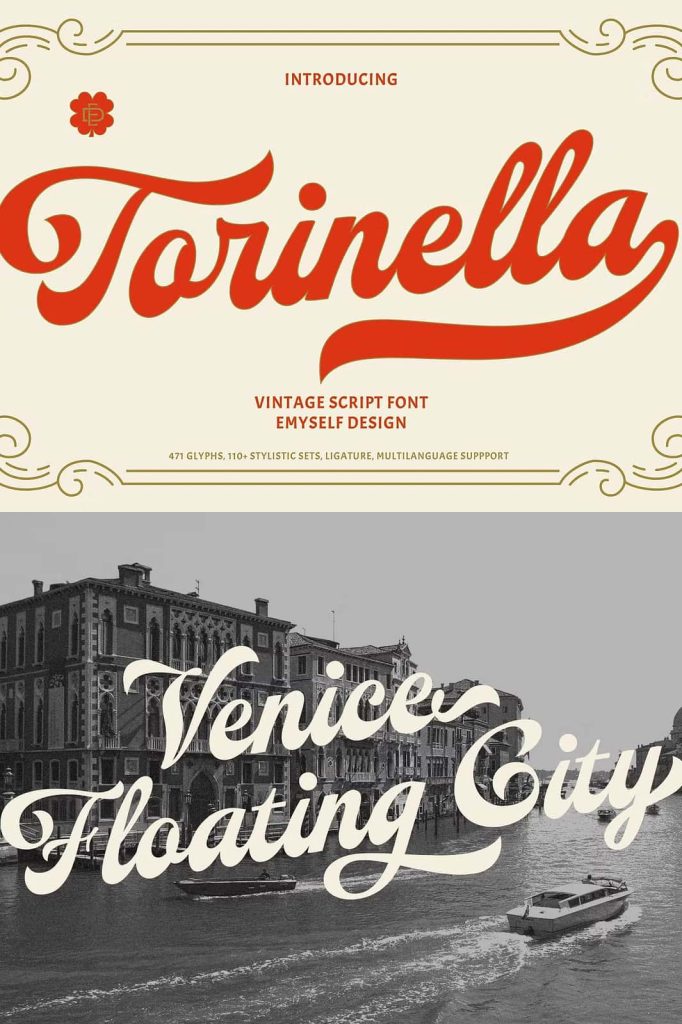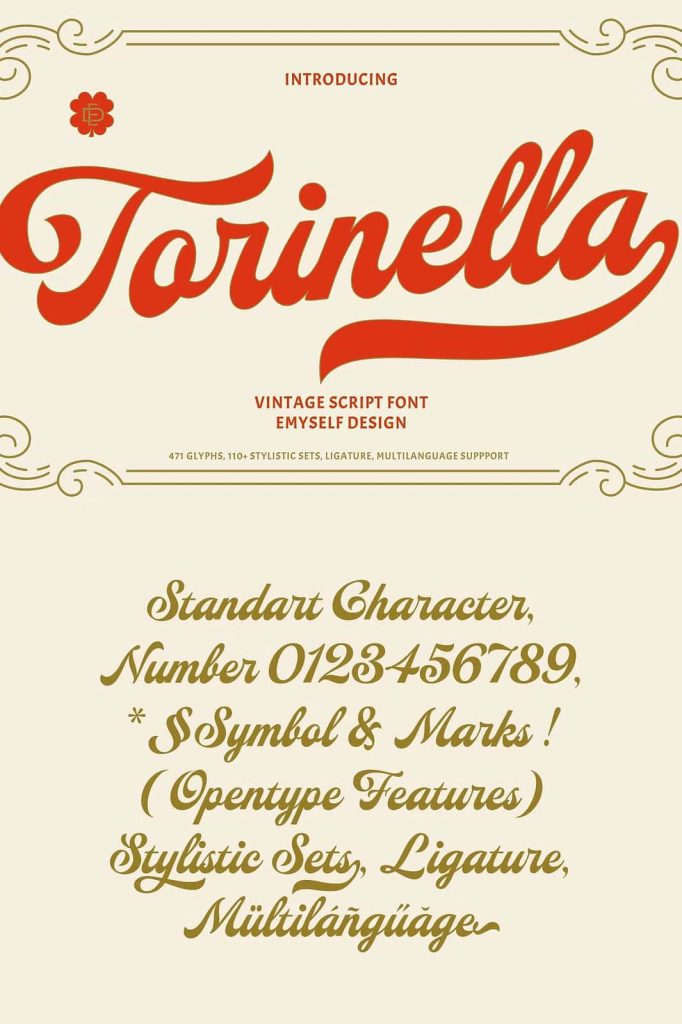
ED Torinella Vintage Script Font – Bold Retro Lettering with Timeless Character
ED Torinella Vintage Script Font is a bold and charismatic script typeface that captures the beauty of classic handcrafted lettering. Designed with thick flowing strokes, elegant curves, and vintage-inspired details, this font delivers a strong visual presence while maintaining excellent readability. Whether you are creating nostalgic branding, eye-catching signage, stylish packaging, or memorable logos, ED Torinella brings personality and authenticity to every design.
Inspired by traditional sign painting and retro typography, ED Torinella combines old-school craftsmanship with modern versatility. The result is a script font that feels timeless, expressive, and professional across both digital and print applications. Its smooth connections and confident letterforms make every word appear naturally handcrafted while remaining polished enough for contemporary branding projects.
A Vintage Script Font Inspired by Handcrafted Signage
ED Torinella draws inspiration from the golden era of hand-painted signs, vintage storefronts, retro advertising, and classic lettering artists. During that period, typography was created by skilled hands instead of automated tools, giving every letter its own unique rhythm and personality. This font preserves that artistic tradition while adapting it for today’s creative professionals.
The thick strokes and graceful curves create typography that immediately attracts attention. Every character has been carefully designed to maintain balance and consistency while preserving the authentic handcrafted appearance that makes vintage script fonts so appealing.
Bold Letterforms with Elegant Flow
One of the defining characteristics of ED Torinella is its confident script style. The bold construction allows headlines and logos to stand out, while the flowing connections create a natural reading experience. This balance between strength and elegance makes the font highly versatile for a wide variety of creative projects.
Its smooth curves add sophistication without becoming overly decorative. Instead, the font delivers a clean vintage aesthetic that feels both nostalgic and modern, making it suitable for businesses looking to establish a memorable visual identity.
Perfect for Vintage and Modern Branding
Whether you are building a retro-inspired brand or adding classic character to a contemporary project, ED Torinella adapts effortlessly. The font works exceptionally well for businesses that value authenticity, craftsmanship, and timeless design. Its handcrafted appearance helps create emotional connections with audiences while reinforcing a premium and professional image.
From boutique brands and coffee shops to apparel companies and artisan products, ED Torinella provides typography that communicates confidence and creativity.
Ideal Applications
- Vintage logo design
- Brand identity projects
- Retro product packaging
- Restaurant and café branding
- Handcrafted product labels
- Apparel and merchandise
- Signage and storefront displays
- Posters and promotional materials
- Book and album covers
- Website headers
- Advertising campaigns
- Greeting cards
- Creative presentations
- Editorial headlines
Create Memorable Logos and Wordmarks
Strong typography is essential for successful branding, and ED Torinella offers everything needed to build distinctive logos and custom wordmarks. The flowing script style gives every brand name a handcrafted appearance while maintaining the bold presence required for professional identity design.
The font performs beautifully across various sizes, allowing your logo to remain clear and recognizable on business cards, product packaging, websites, signage, and marketing materials.
Versatile Across Print and Digital Media
ED Torinella delivers consistent results across both traditional print and modern digital platforms. In printed materials, the bold script creates impactful headlines for brochures, posters, labels, menus, and packaging. On digital platforms, it enhances websites, online stores, social media campaigns, advertisements, and promotional graphics with timeless visual appeal.
The balanced spacing and carefully designed letterforms ensure readability while preserving the artistic style that defines vintage script typography.
Features
- Bold vintage script style
- Elegant flowing letterforms
- Inspired by handcrafted signage
- Classic retro typography
- Strong visual impact
- Excellent readability
- Suitable for branding and logos
- Perfect for print and digital design
- Professional handcrafted appearance
- Versatile across multiple creative industries
Why Choose ED Torinella Vintage Script Font?
ED Torinella offers the perfect combination of nostalgic charm and modern functionality. Instead of relying on excessive decoration, it uses confident strokes, graceful curves, and carefully balanced proportions to create typography that feels authentic and timeless. Designers can confidently use the font across complete branding systems while maintaining consistency and visual impact.
Bring Vintage Style to Your Next Creative Project
If you are looking for a bold script font that celebrates the beauty of classic handcrafted lettering, ED Torinella Vintage Script Font is an excellent choice. Combining retro inspiration with contemporary usability, this typeface helps designers create memorable branding, impactful marketing materials, and elegant typography that stands the test of time. From vintage signage and stylish packaging to modern logos and creative digital content, ED Torinella adds confidence, personality, and timeless appeal to every design.